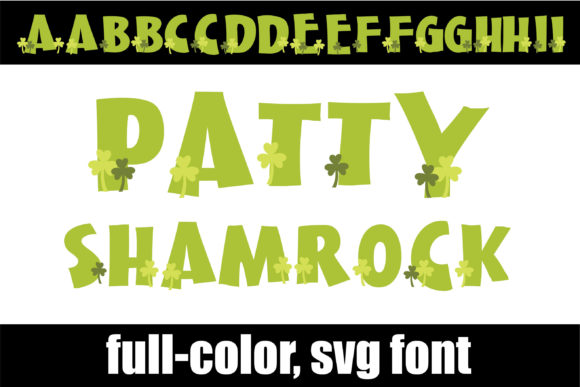
Prepare to be mesmerized by Patty Shamrock, a font that bursts with color and charm. This captivating font is adorned with delicate clovers that dance merrily across each character, adding an enchanting touch to your designs. Let your creativity bloom with Patty Shamrock, the ultimate font for adding a dash of whimsy and joy to your projects. Perfect for those seeking unique and visually striking fonts, Patty Shamrock is a gem that will elevate your designs to new heights.
With its vibrant green hues and playful clover accents, Patty Shamrock is the perfect choice for crafting eye-catching logos, cheerful invitations, vibrant social media posts, and more. Its full-color glory will add a pop of personality to any project, making your designs stand out from the crowd.
Embrace the magic of Patty Shamrock and let your imagination run wild. Its versatile nature makes it a perfect fit for a variety of projects, from whimsical illustrations and designs to cheerful branding and marketing materials. Whether you're a seasoned designer or just starting to dabble in the world of fonts, Patty Shamrock is the perfect companion for adding a splash of color and charm to your creative endeavors.
Experience the joy of using Patty Shamrock and see how it transforms your designs into captivating masterpieces. Unleash your creativity and embrace the beauty of color with this enchanting font. Download Patty Shamrock today and let the clover-filled letters bring your designs to life!